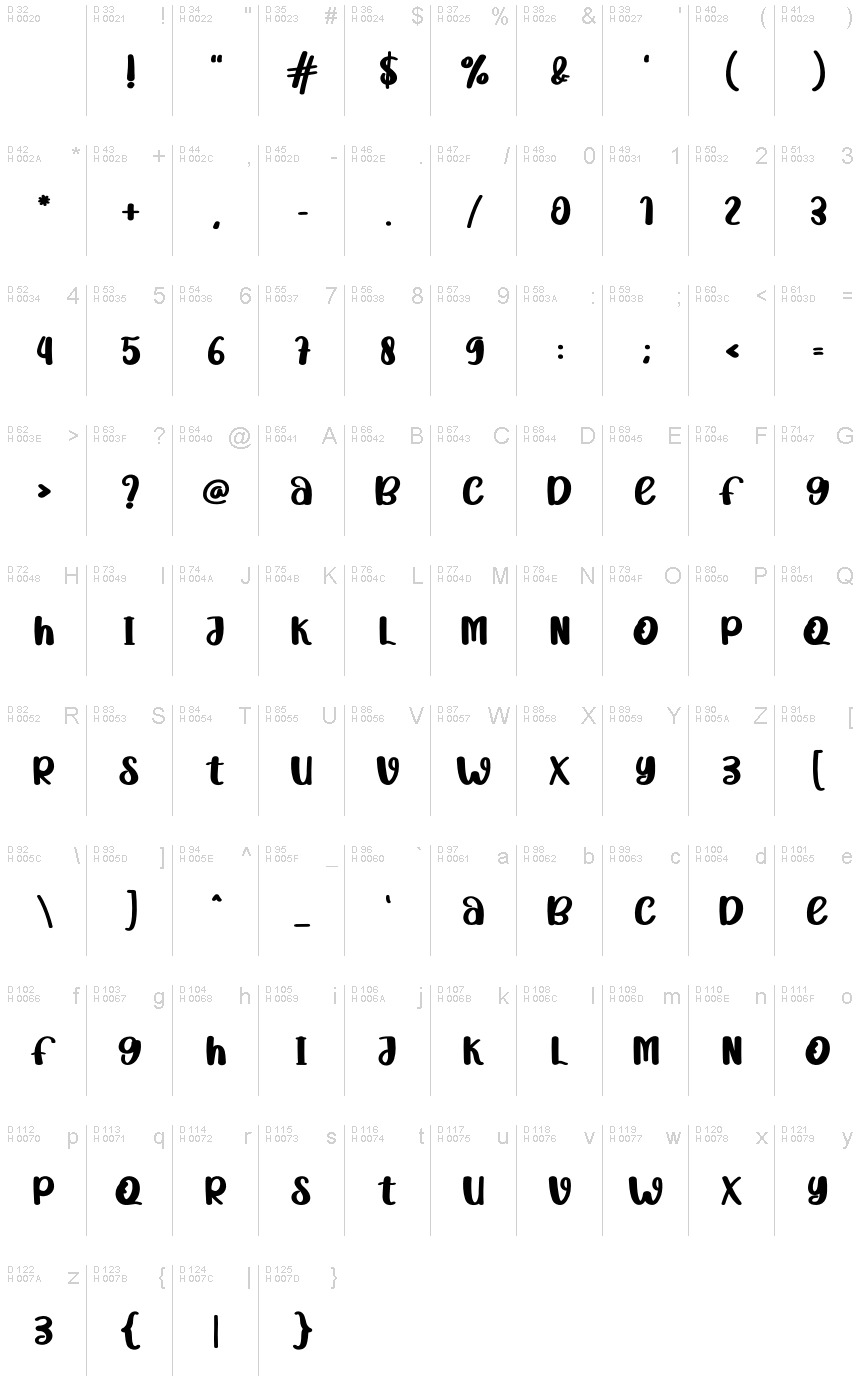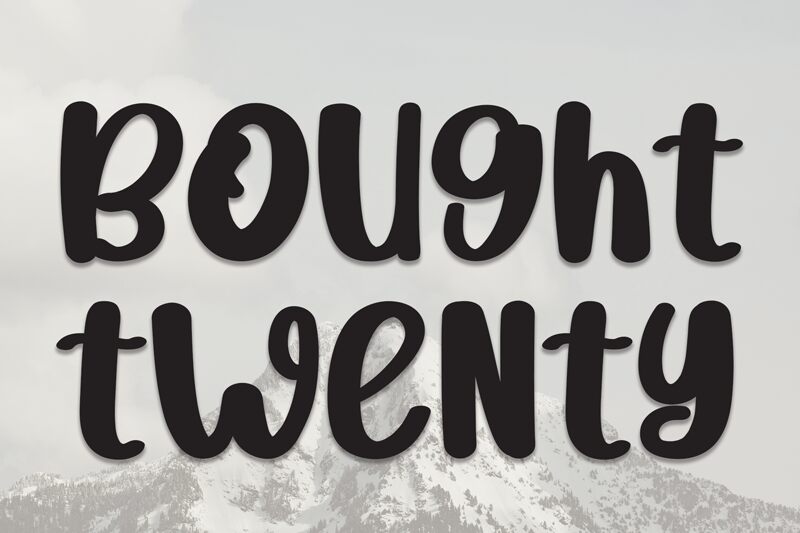
Bought Twenty
Bought Twenty is a smooth, bold brush font designed by Andi Moz. Its dynamic, streamlined strokes convey a sense of effortless elegance, making it an ideal choice for a wide range of design applications. From sleek branding and packaging to eye-catching headlines and signage, Bought Twenty's versatile style seamlessly blends modern sophistication with a touch of artisanal flair.
The font's bold weight and fluid brush-like forms lend it a distinct personality, elevating any text-driven design. Its smooth, uninterrupted lines create a cohesive and visually appealing aesthetic, making it an excellent option for titles, logotypes, and high-impact typographic compositions. Bought Twenty's versatility allows it to shine in both digital and print media, ensuring a consistent and impactful visual identity across various platforms.